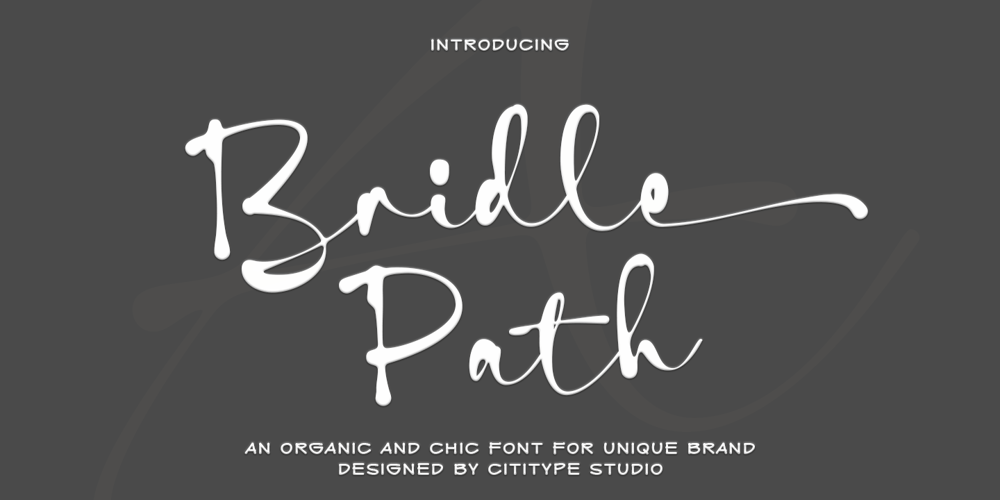
Bridle Path Font Family was designed by Muhammad Ridha Agusni, Siti Saribanon Nurjannah and published by Cititype. Bridle Path contains 2 styles and family package options. ‘Bridle Path’ is a captivating font that embodies the graceful beauty of natural ink strokes. With its unique blend of thick and light strokes, it exudes a tranquil and soulful writing style that is both relaxed and inviting. The font’s distinctive character makes it an excellent choice for various applications, including brands, logos, photography logo watermarks, headers, titles, weddings, cards, and website banners.The fluidity of Bridle Path’s design creates an enchanting visual experience, as if each letter was crafted by an artist’s brush. The thick strokes provide a sense of boldness and strength, while the light strokes add delicacy and elegance to the overall appearance. This combination results in a font that captures attention and leaves a lasting impression.Bridle Path’s versatility extends beyond its aesthetic appeal. It has been meticulously crafted to support multilanguage usage, ensuring that it can seamlessly adapt to various linguistic needs. Whether your content is in English, Spanish, French, German, or any other language, Bridle Path will faithfully represent your words with clarity and beauty.Whether you’re seeking a font that embodies a serene atmosphere or one that adds a touch of sophistication, Bridle Path is the perfect choice. Its soothing and expressive nature elevates any design, making it a valuable asset for both professional and personal projects. Embrace the allure of ‘Bridle Path’ and bring a sense of natural elegance to your creations.